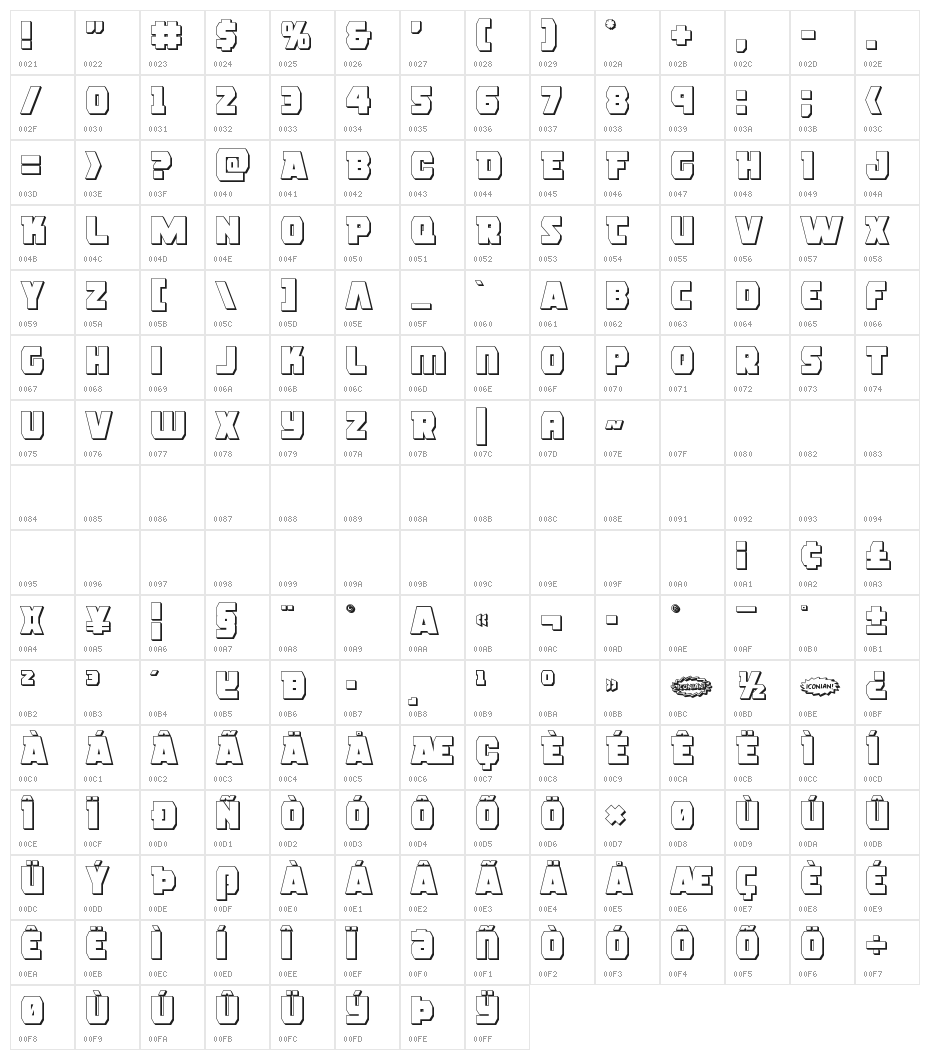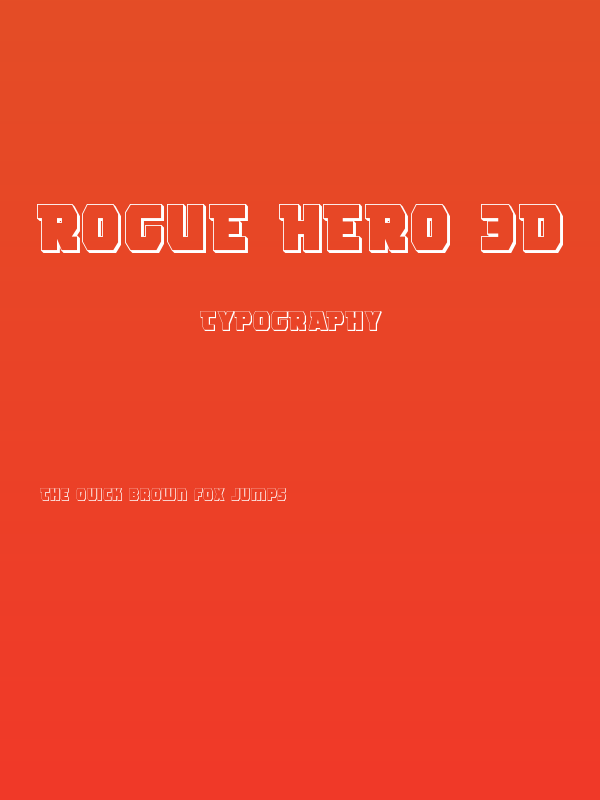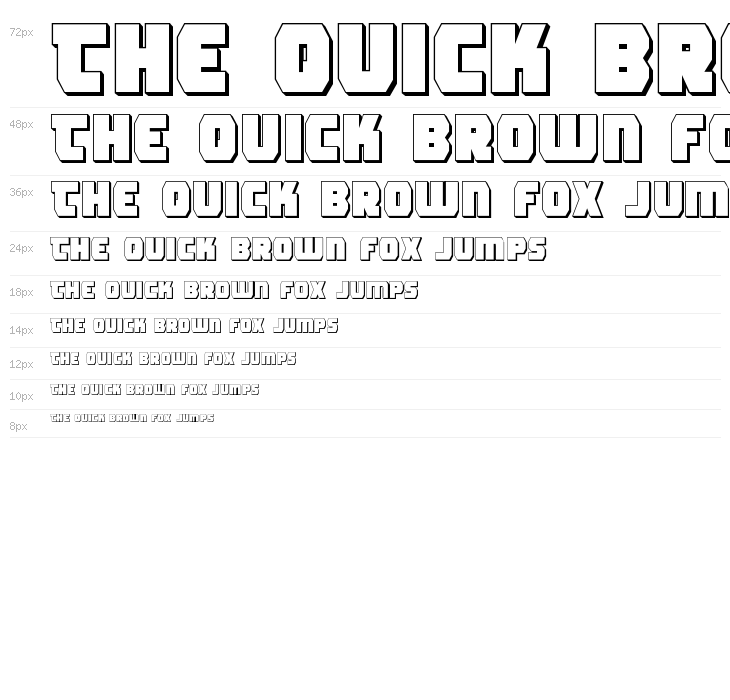
Rogue Hero 3D Font
Rogue Hero 3D Description
This bold and striking font features a 3D block style with a strong, geometric presence. The characters are outlined with a thick black border, giving them a distinct and impactful look. The uppercase and lowercase letters maintain a consistent style, with sharp angles and a uniform width that enhances readability. The numbers and special characters follow the same design principles, ensuring a cohesive appearance across all elements. This font's boldness and unique 3D effect make it ideal for attention-grabbing designs.
| Proposed Projects | Perfect for video game titles, posters, logos, and any design needing a bold, eye-catching typeface. |